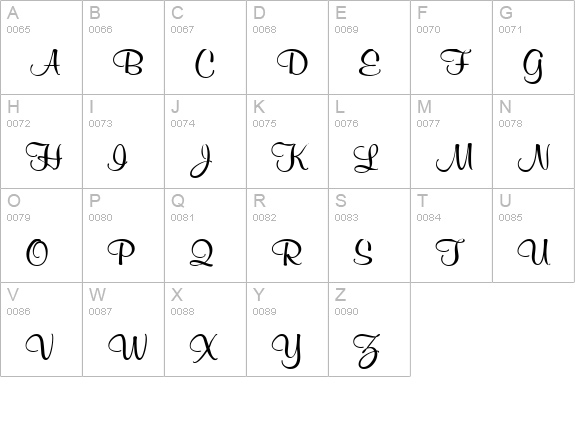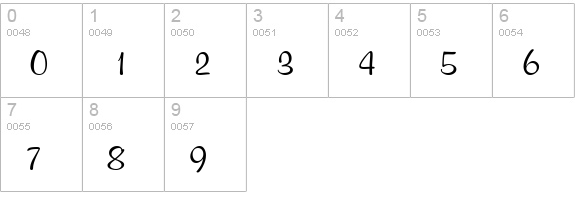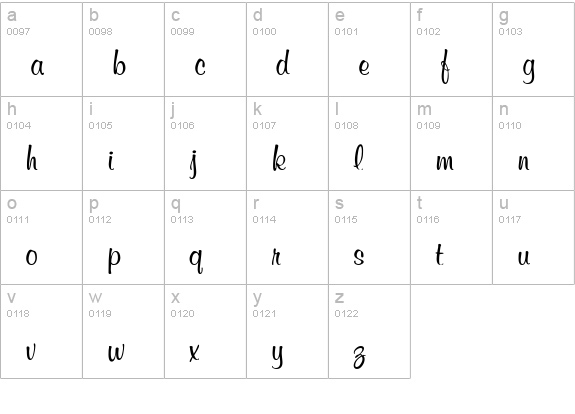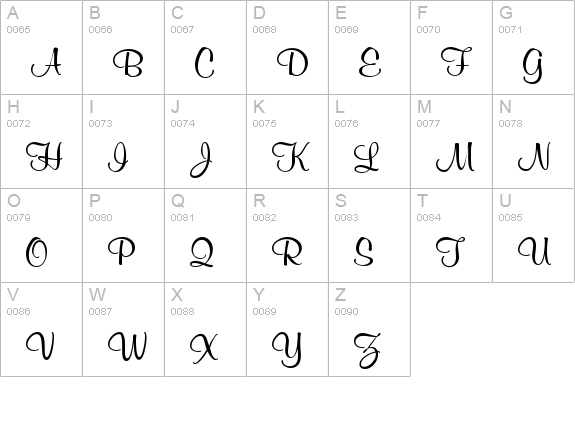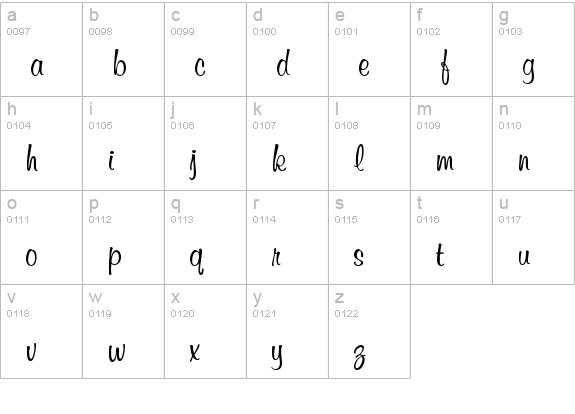
Murphy Script Font Details
Murphy Script font is a stunning script typeface that exudes elegance and sophistication. With its flowing curves and graceful strokes, this font is perfect for adding a touch of class to your projects. Whether you're designing invitations, branding materials, or packaging, Murphy Script will elevate your work to the next level. The best part? Murphy Script font is available for free download at FontsMarket.com. You can easily access this beautiful font and use it in your designs without any cost. Embrace the beauty of Murphy Script and let your creativity shine with this exquisite typeface.